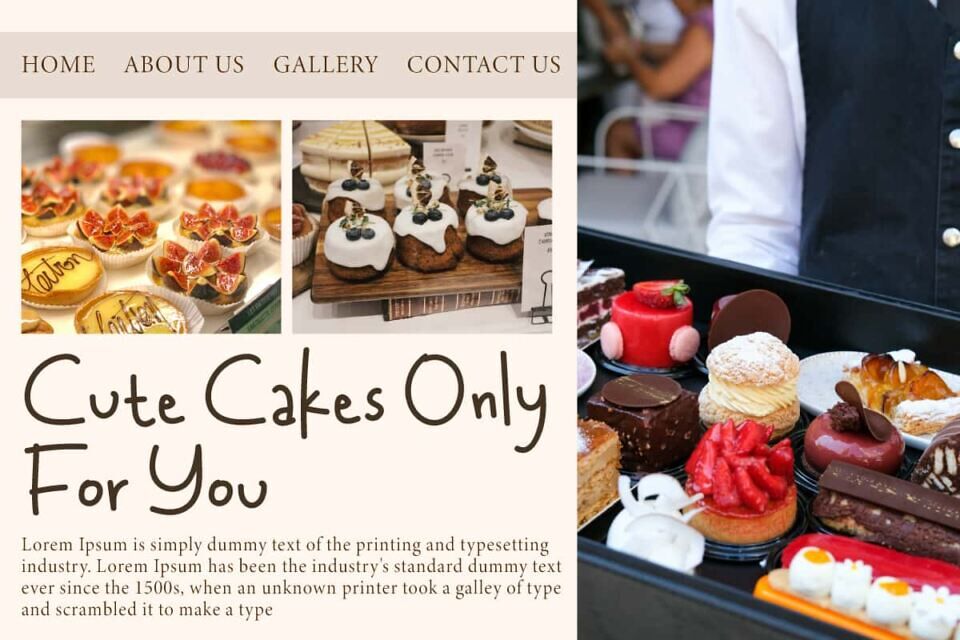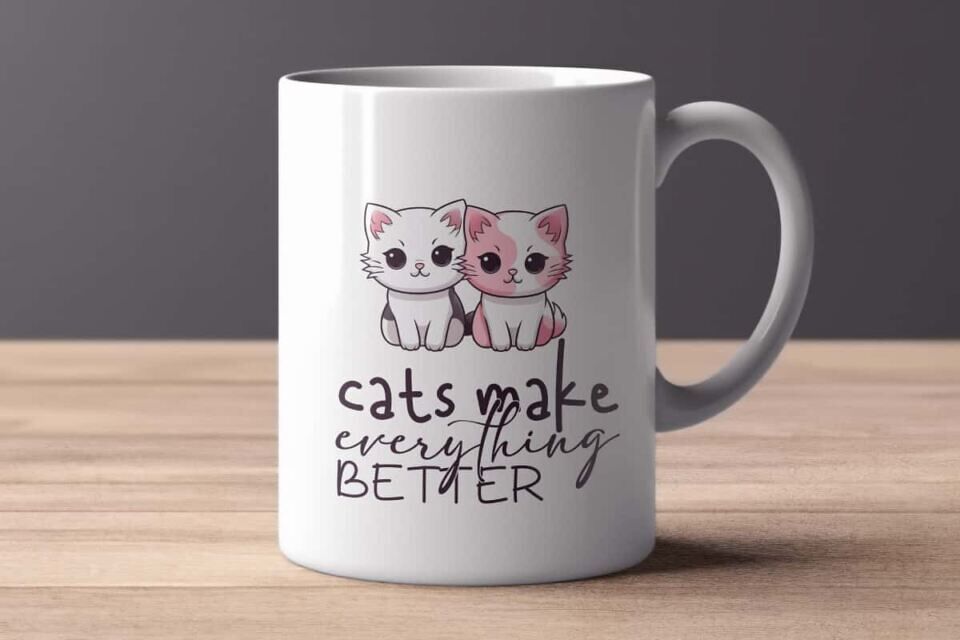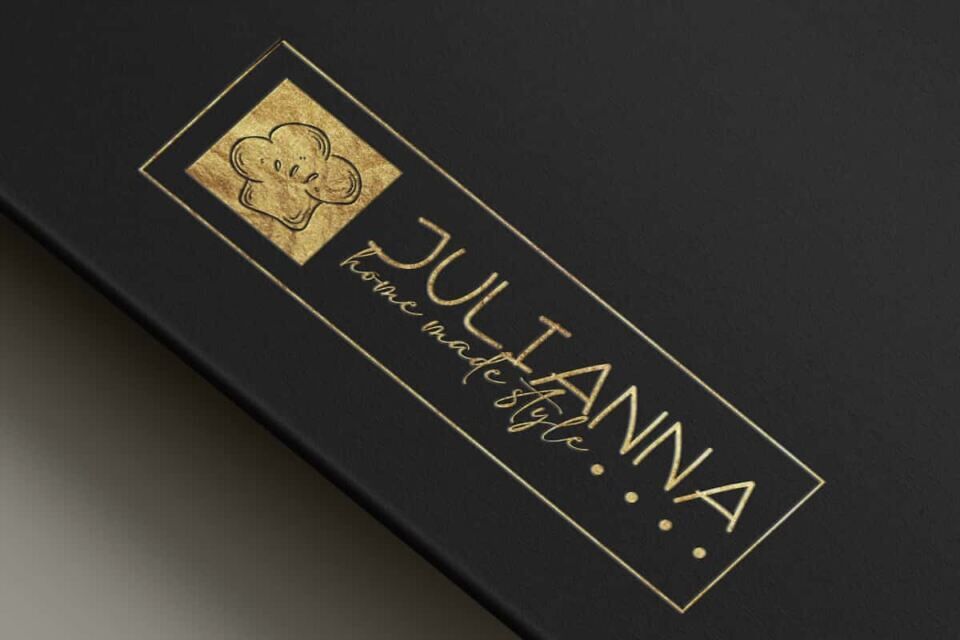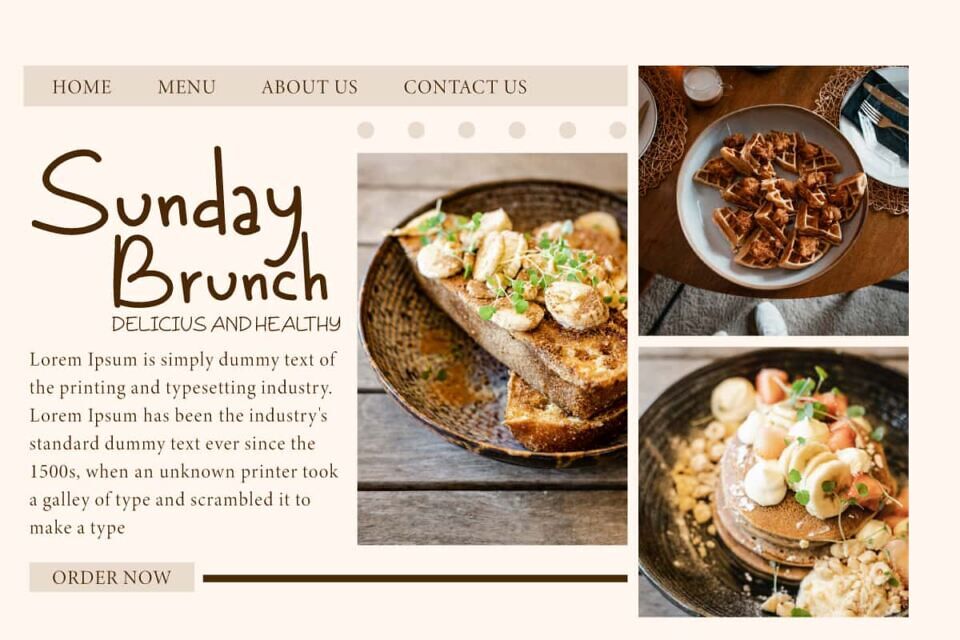
Tasty Culinary Font is a cute display font with a touch of unmatched playfulness and a sense of happiness. Its versatility allows it to blend seamlessly with a variety of uses, such as banners, blogs, brochure, covers, embossed design, flyer, headers, label, logo, menu, mockup, poster, quotes, screen printed, sticker, template, title, watermark, website, and others.
Tasty Culinary Font comes with full set of Uppercase and Lowercase Basic Characters, Number, a large range of Punctuation, and Symbol. This unique, modern and very trendy font will make your design filled with stunning beauty. This ensures that your idea not only stands out but also leaves a lasting impression! Perfect for advertising, bakery, cafes, home furniture, printing, restaurant, sweetshop, etc.